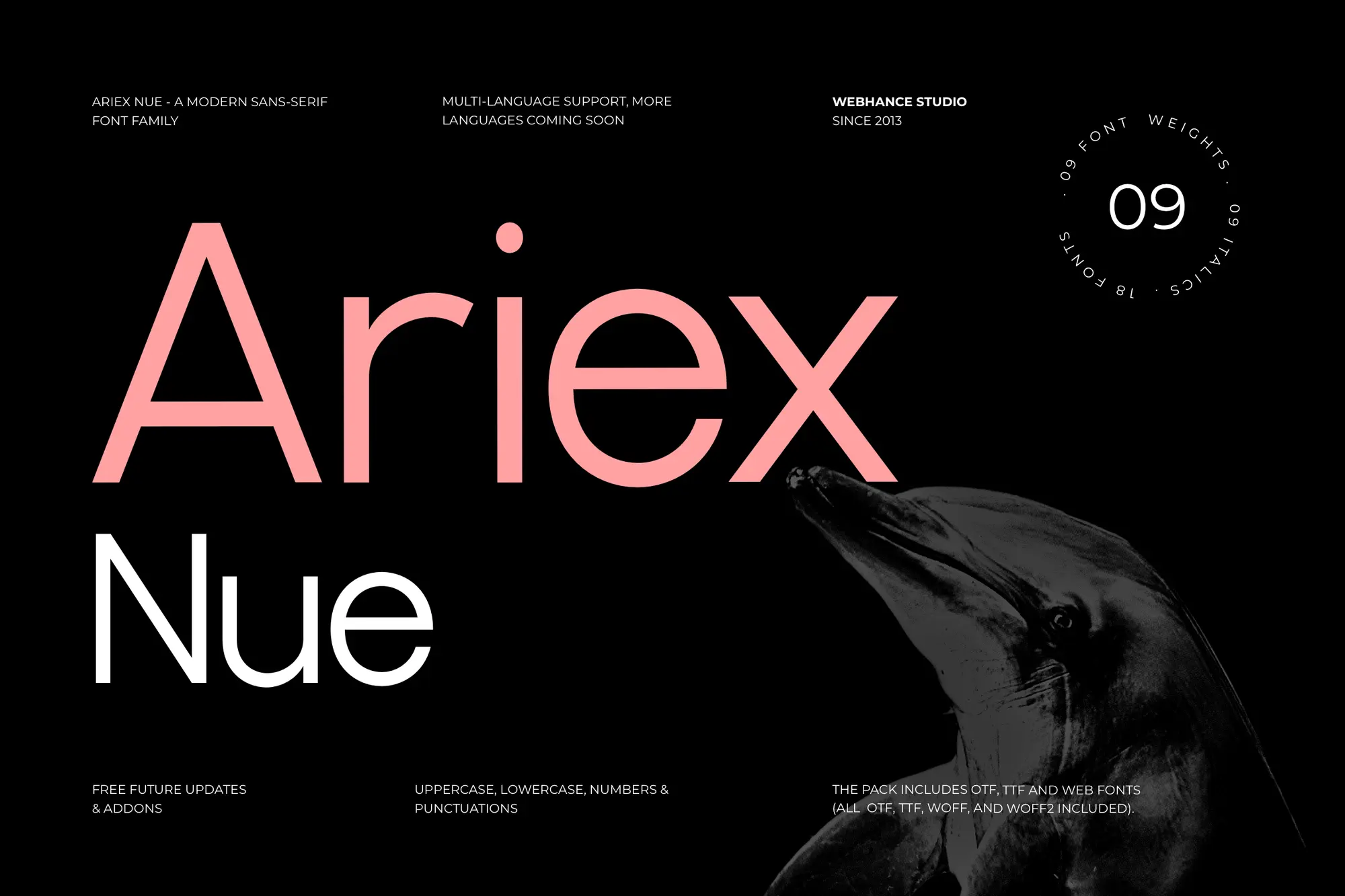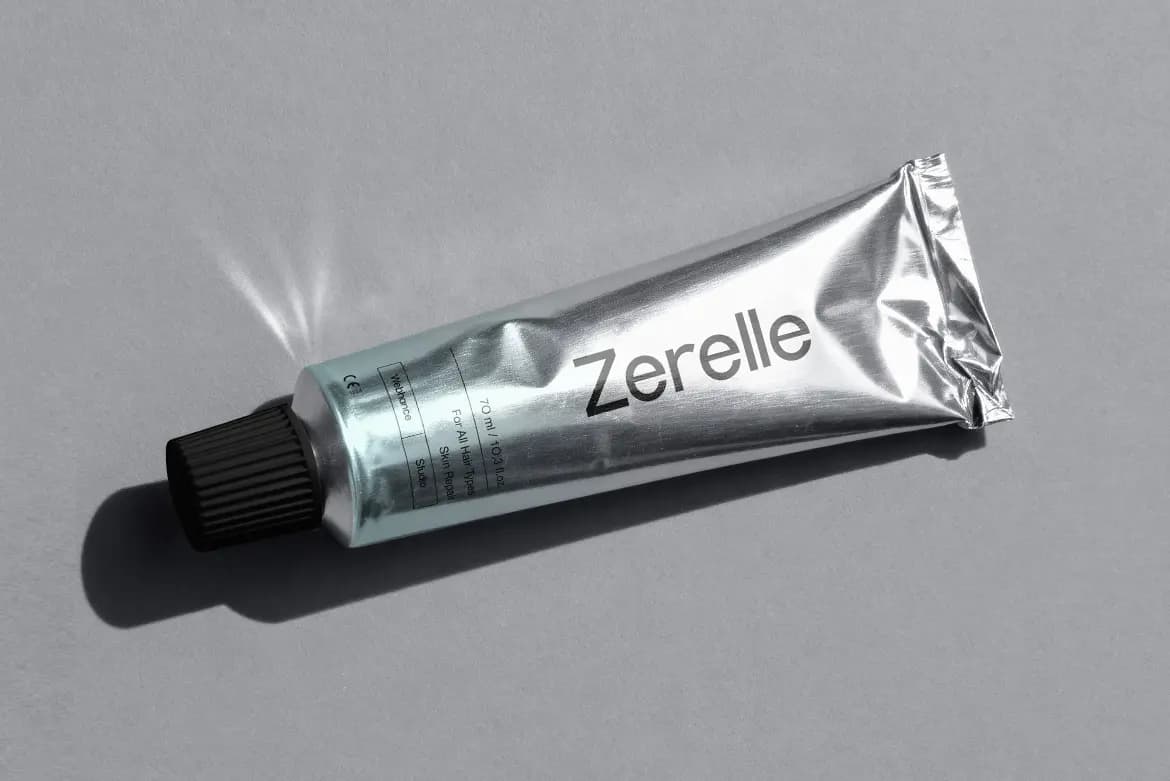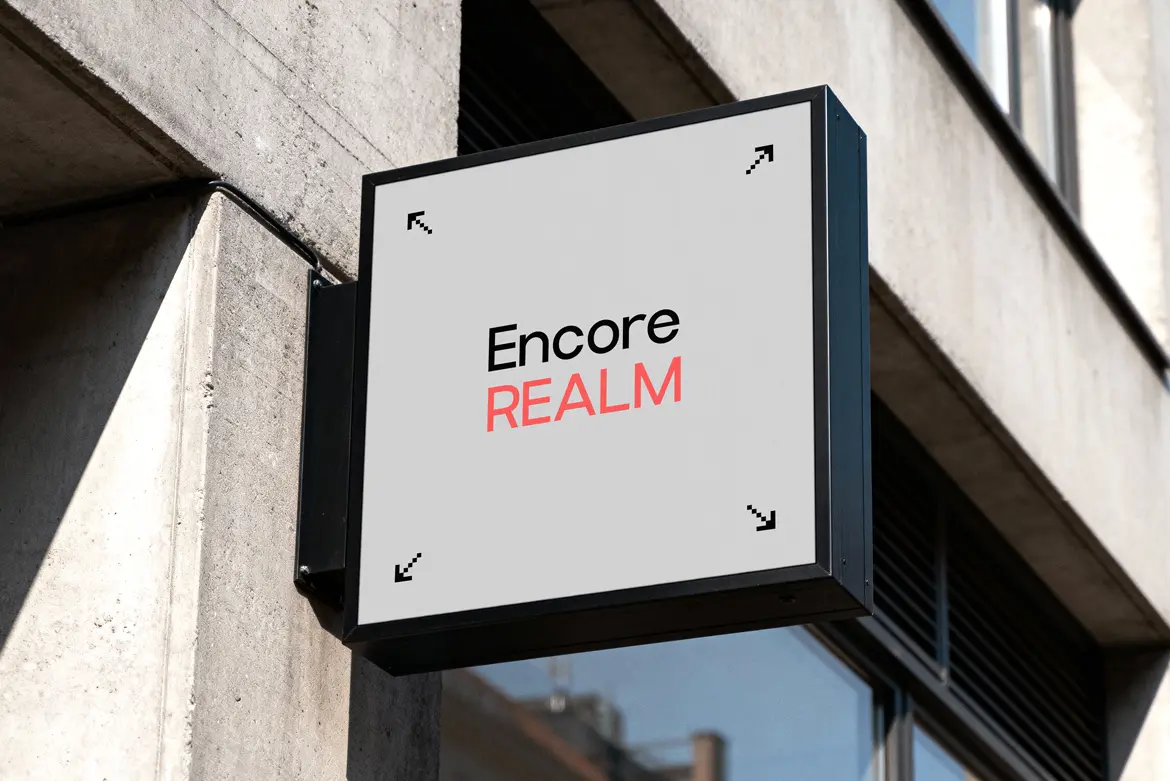
Ariex Nue
Overview
Ariex Nue is a contemporary sans-serif font that embodies minimalism and elegance. Designed for versatility, it is ideal for branding, signage, and digital platforms. Its clean lines and geometric shapes make it suitable for both modern and classic design projects.
Design Traits
- Clean geometric forms enhance readability.
- Balanced spacing ensures legibility in various sizes.
- A modern tone fits luxury and minimalist aesthetics.
- Sharp edges create a professional and polished look.
Key Features
- Multiple weights and italics available
- Extensive character support for international languages
- Optimized for print and screen performance
Best Use Cases
- Branding for luxury products and services
- Logo design for businesses seeking a modern identity
- Social media graphics, including Instagram posts
- Editorial layouts in magazines and newspapers
- Signage that requires clarity and style
Why Designers Choose Ariex Nue
- Versatile for multiple design applications
- Enhances brand visibility with a unique aesthetic
- Supports effective communication through clear readability
- Ideal for both print and digital projects